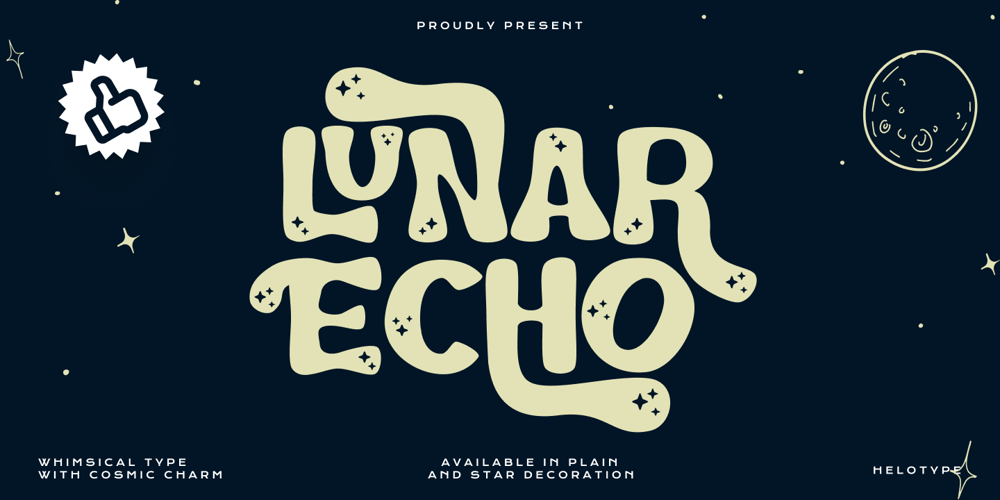
Lunar Echo
Lunar Echo font
Lunar Echo Font Family was designed by Yudi Setiawan and published by Wyarecreatype. Lunar Echo contains 1 styles and family package options. Unleash your inner astronaut with Lunar Echo! This whimsical space-themed font is out of this world, perfect for adding a touch of cosmic charm to your designs. From playful posters to dreamy branding, let Lunar Echo take you on an interstellar adventure.FEATURES Uppercase and Lowercase letters ligature and alternates feature Numbering and Punctuations Multilingual Works on PC or Mac Simple Installation Support Adobe Illustrator, Adobe Photoshop, Adobe InDesign, also works on Microsoft Word Hope you Like it. Thanks. Helotype